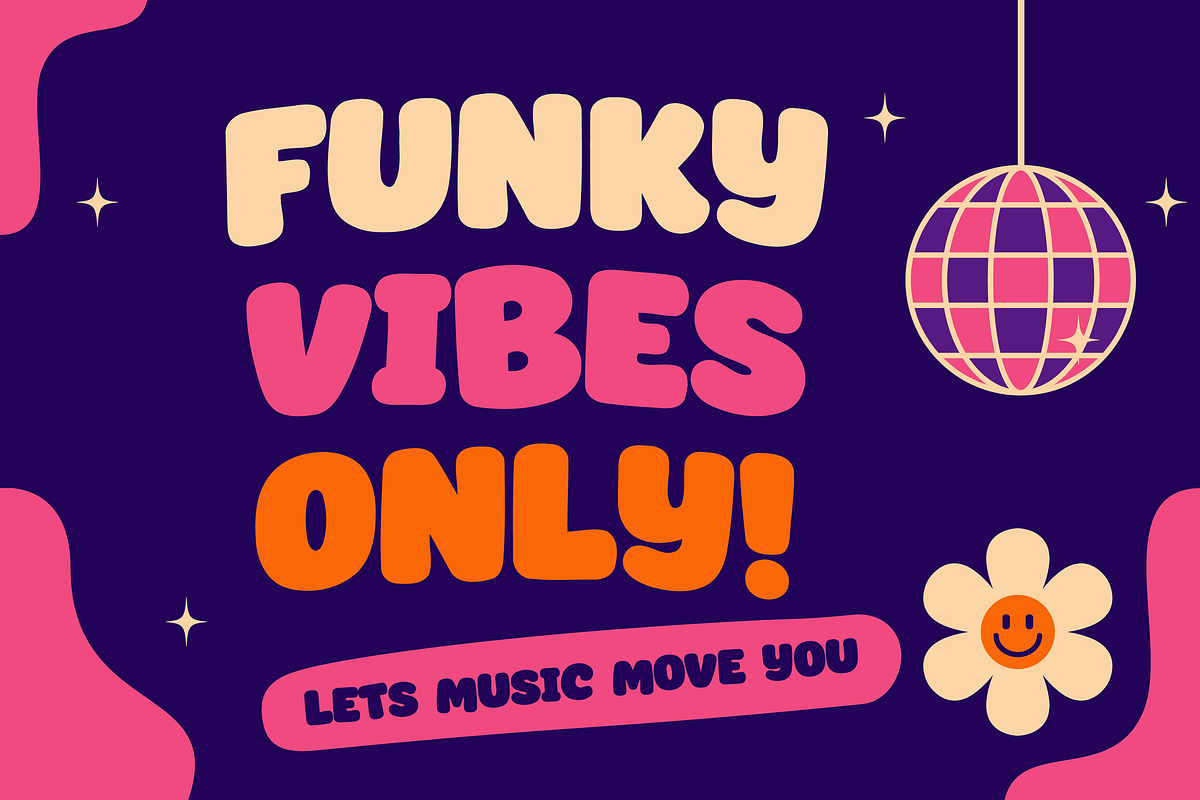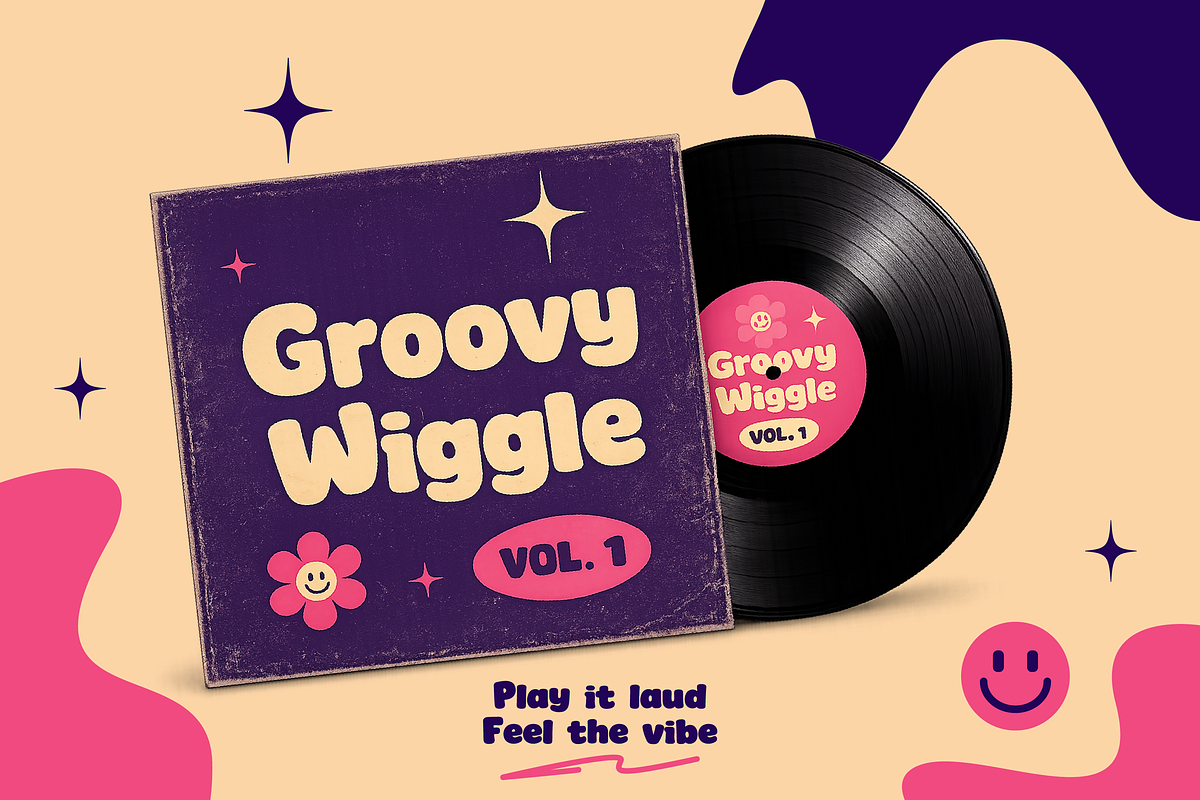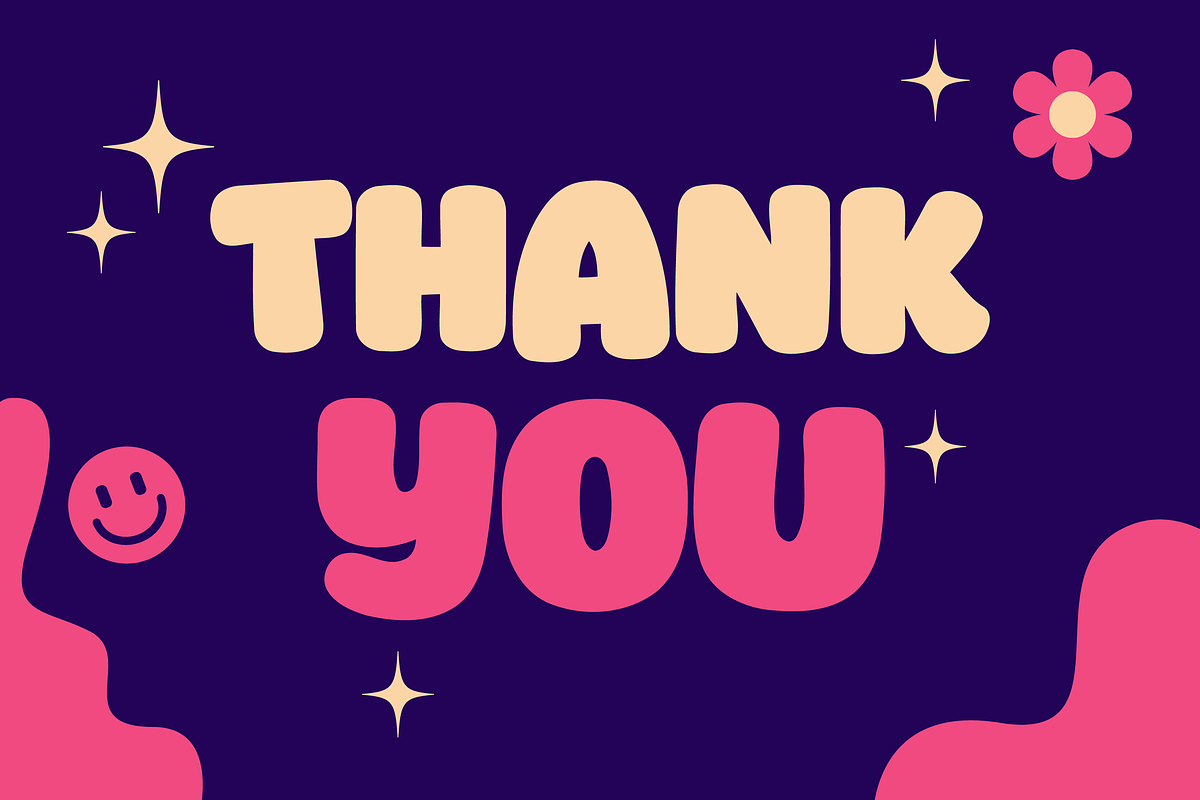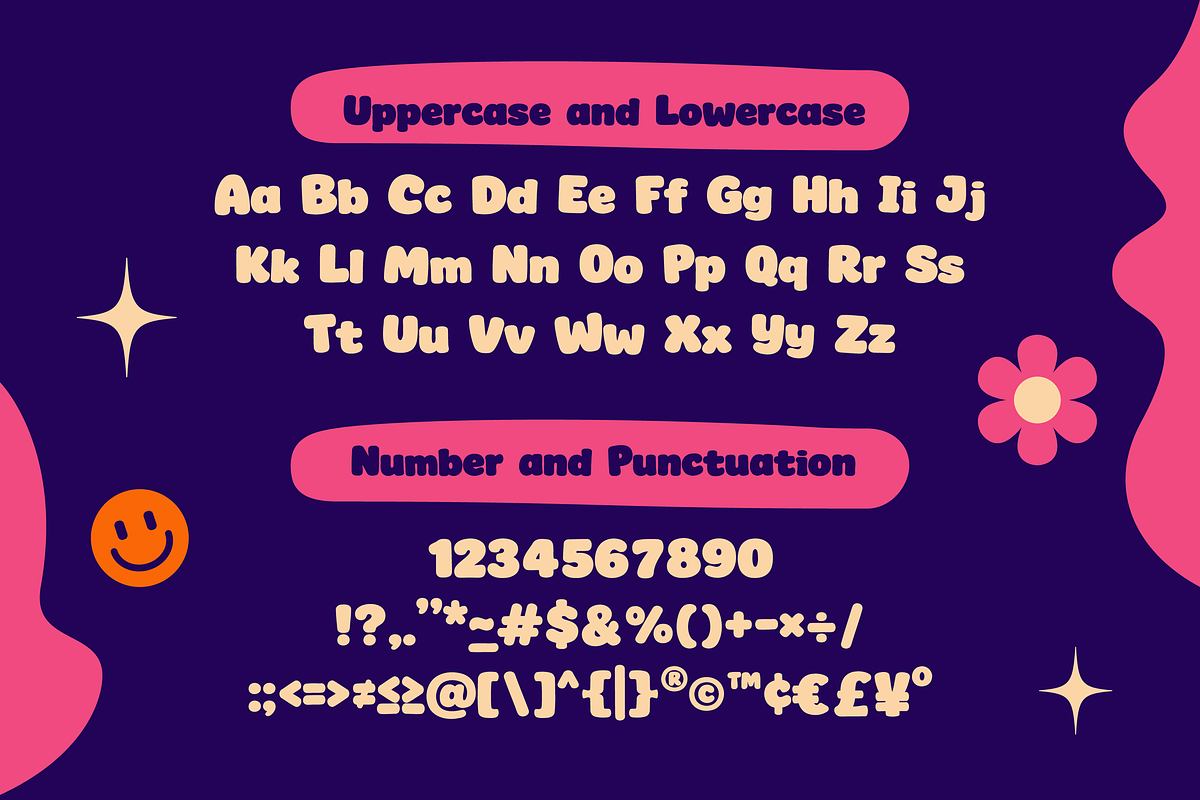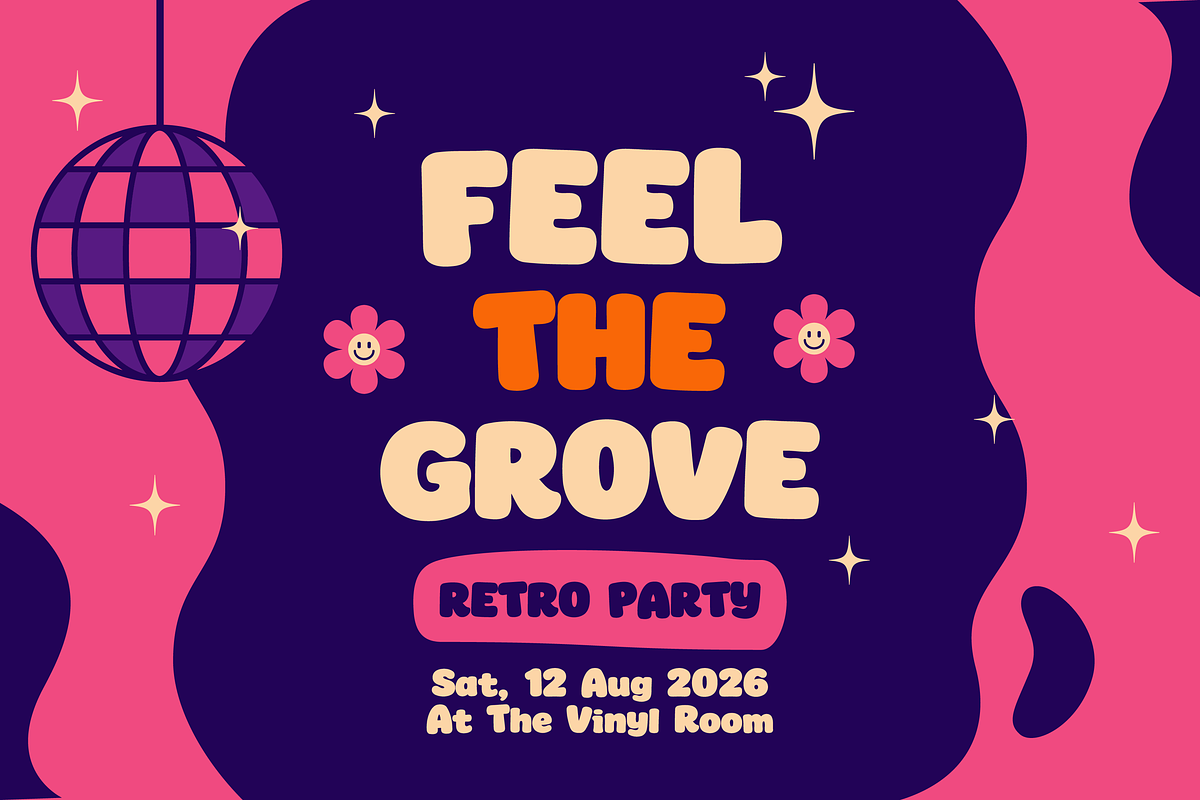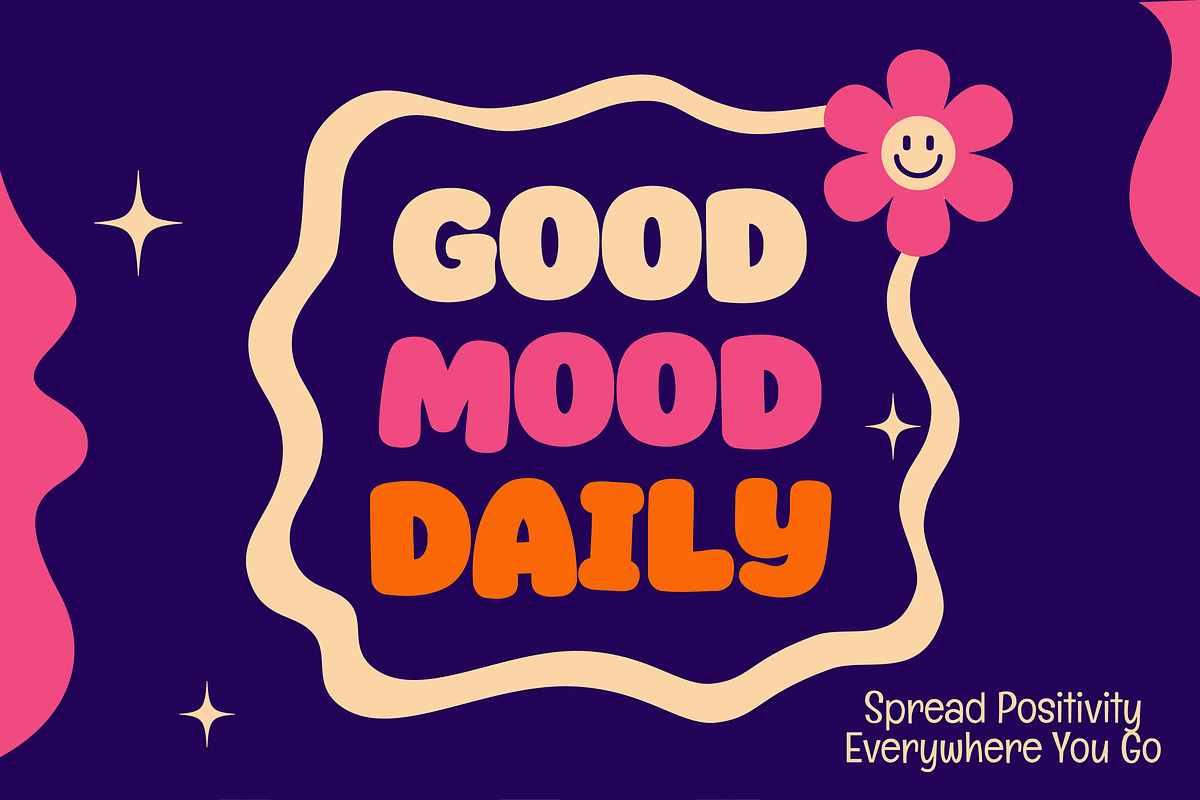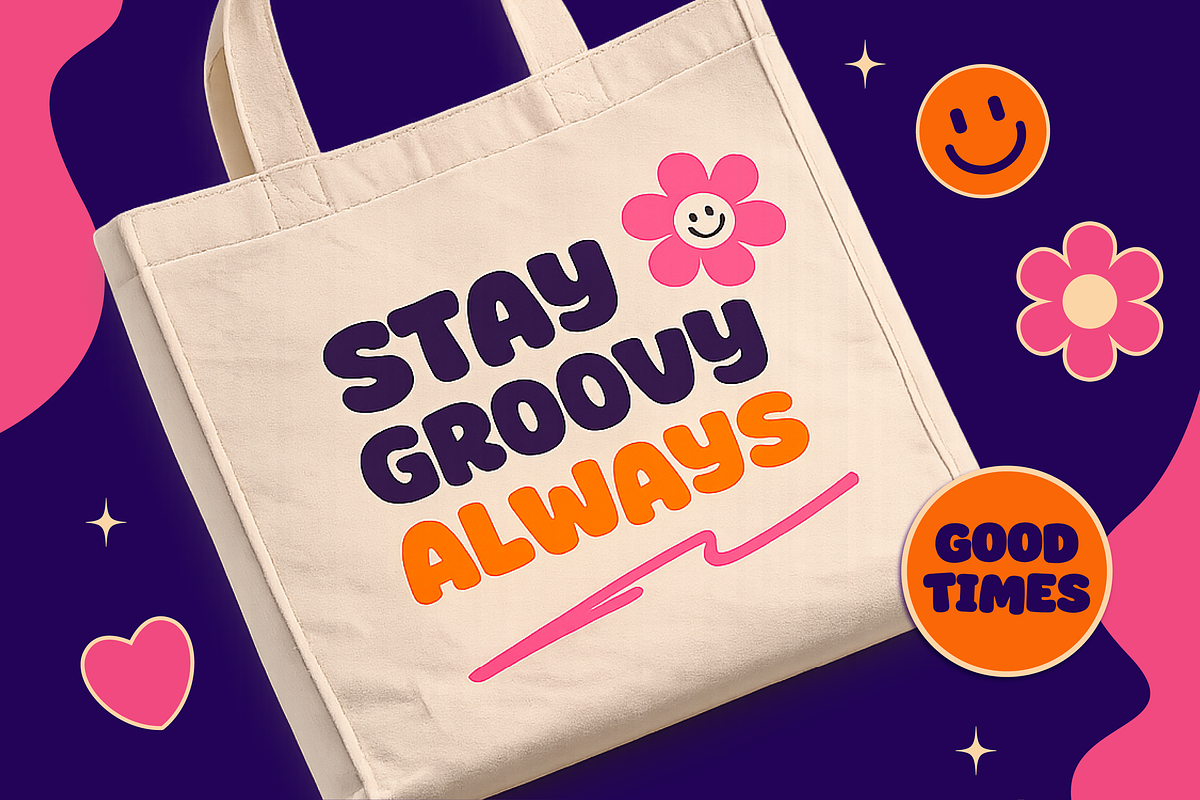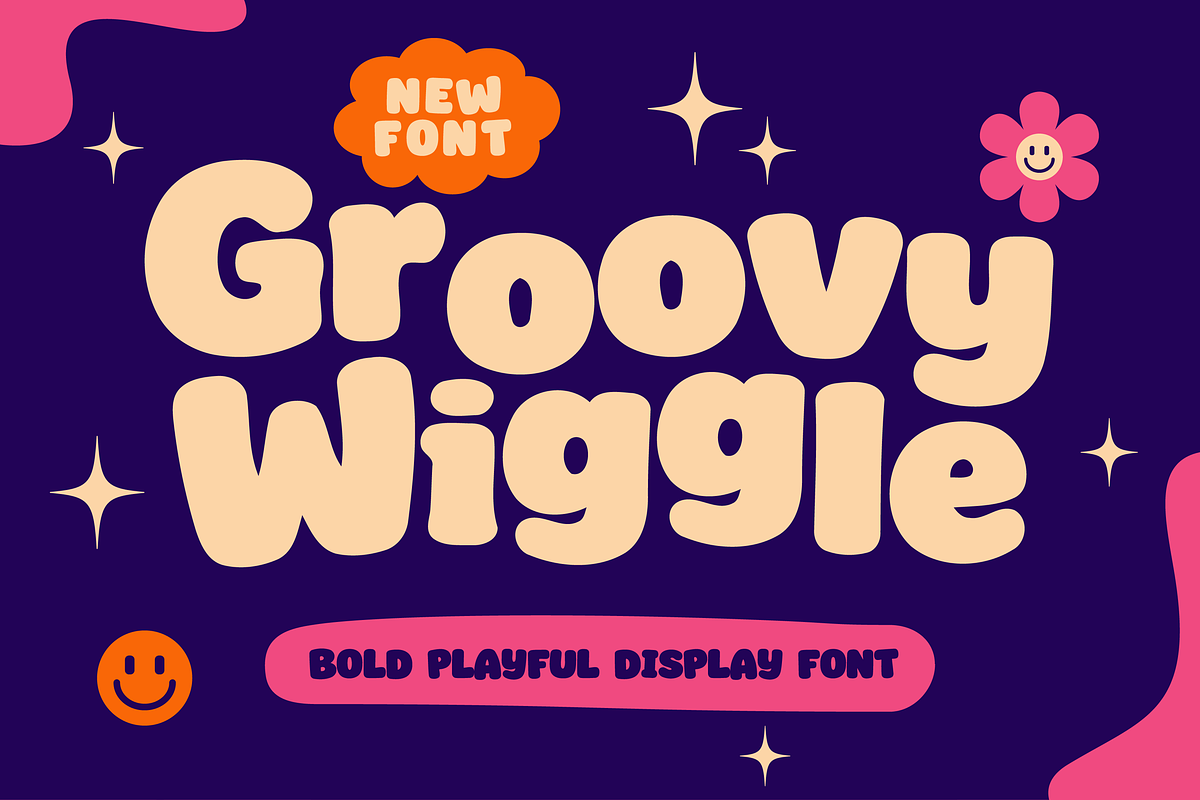
Groovy Wiggle - Bold Playful Display
Groovy Wiggle - Bold Playful Display Font
Groovy Wiggle is a bold playful display font inspired by retro pop culture, funky shapes, and cheerful typography. Its thick rounded characters and bouncy letterforms create a fun and expressive look that instantly grabs attention.
Perfect for kids branding, playful posters, social media graphics, packaging, merchandise, stickers, logos, and creative projects, Groovy Wiggle delivers a vibrant retro-modern atmosphere full of energy and happiness.
With its soft curves and quirky personality, this font is designed to make your typography feel friendly, fun, and full of character.